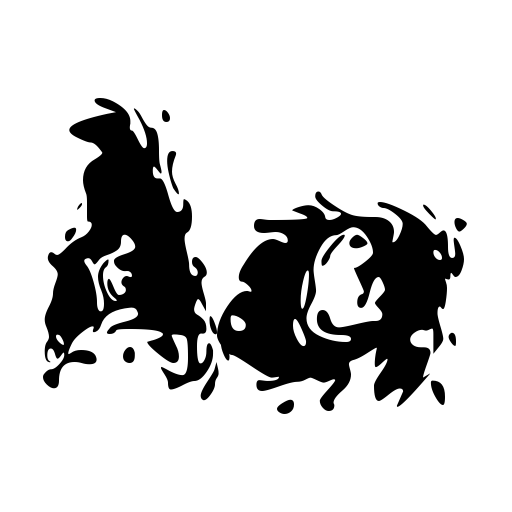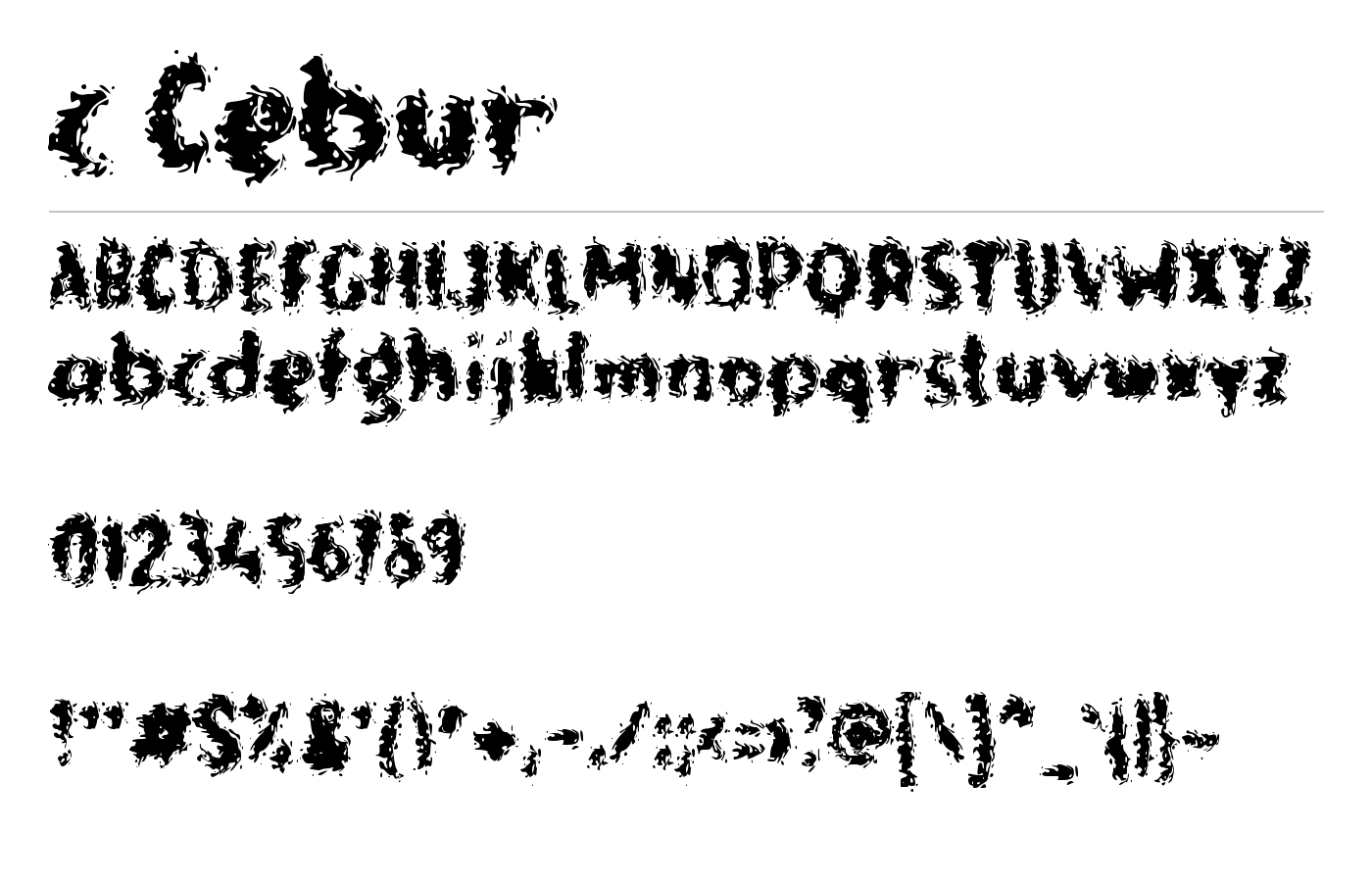
c Cebur is a bold, decorative display font with an organic, ink-blot texture that gives it a chaotic and edgy appearance. Its irregular, rough edges and compact letterforms make it perfect for eye-catching headlines, posters, or creative projects that need a raw, artistic vibe rather than traditional readability. This font works well in designs where a striking, unconventional look is desired, especially in alternative or experimental visual styles.
c Cebur Font